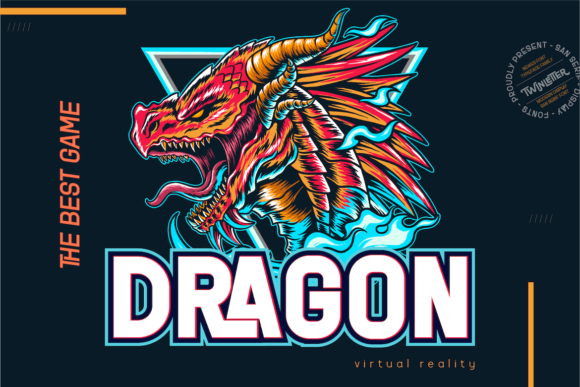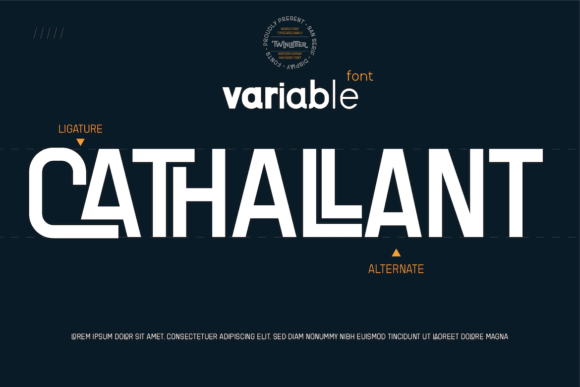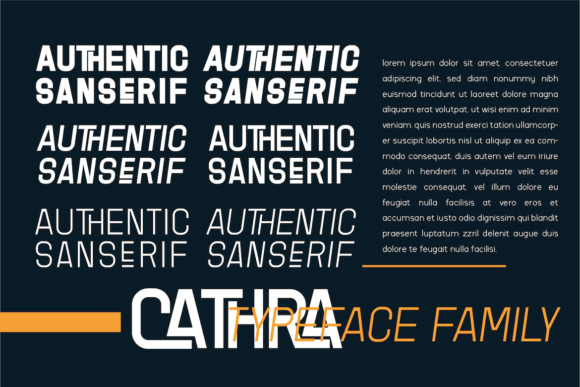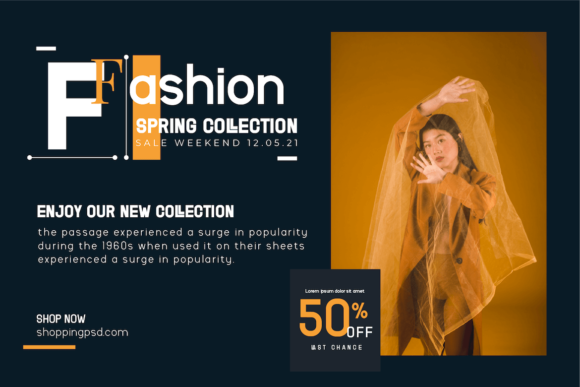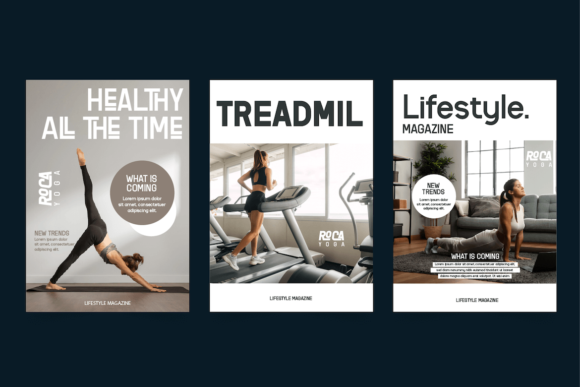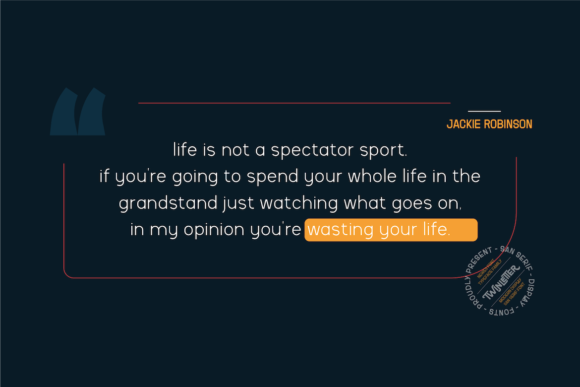
Cathra Font: Elevate Your Designs with a Cool, Bold, and Modern Sans Serif Font
In the world of design, fonts play a crucial role in conveying the message and aesthetic of a project. Whether you’re a seasoned designer or a crafty DIY enthusiast, finding the right font can make all the difference. If you’re on the hunt for a cool, bold, and modern sans serif font, look no further than Cathra. In this article, we’ll dive into the features and benefits of the Cathra font, and explore how it can elevate your designs to new heights.
What is Cathra Font?
Cathra is a sleek and contemporary sans serif font that’s designed to make a statement. Its clean lines, bold strokes, and modern aesthetic make it perfect for a wide range of design projects. Whether you’re working on a logo, brochure, website, or social media graphics, Cathra is the ideal choice for designers and crafters who want to add a touch of sophistication and style to their creations.
Key Features of Cathra Font
So, what sets Cathra apart from other fonts? Here are some of its key features:
- Cool and Modern Aesthetic: Cathra’s sleek design and bold strokes give it a fresh and modern look that’s sure to grab attention.
- Bold and Versatile: With its sturdy construction and clear typography, Cathra is perfect for headlines, titles, and body text.
- Sans Serif Design: The font’s sans serif design makes it easy to read and versatile enough to use in a variety of contexts.
- Expertly Designed: Cathra has been carefully crafted to ensure that it’s both aesthetically pleasing and highly legible.
Benefits of Using Cathra Font
So, why should you choose Cathra for your next design project? Here are just a few benefits of using this amazing font:
- Stand Out from the Crowd: With its unique and modern design, Cathra is sure to help your project stand out from the competition.
- Easy to Read: The font’s clear typography and bold strokes make it easy to read, even at small sizes.
- Versatile: Cathra can be used in a wide range of design projects, from logos and brochures to websites and social media graphics.
- Time-Saving: With Cathra, you can create professional-looking designs in no time – perfect for busy designers and crafters.
How to Use Cathra Font in Your Designs
Ready to give Cathra a try? Here are some tips for incorporating this amazing font into your designs:
- Pair it with Other Fonts: Cathra looks great when paired with other fonts, so don’t be afraid to experiment with different combinations.
- Use it for Headlines and Titles: The font’s bold strokes and modern aesthetic make it perfect for headlines and titles.
- Experiment with Colors: Cathra looks great in a variety of colors, so don’t be afraid to try out different options.
In conclusion, Cathra is a cool, bold, and modern sans serif font that’s perfect for designers and crafters who want to elevate their designs. With its sleek design, bold strokes, and versatile aesthetic, Cathra is sure to become a go-to font in your design arsenal. So why wait? Give Cathra a try today and see the difference it can make in your designs!
Whether you’re working on a logo, brochure, website, or social media graphics, Cathra is the ideal choice for anyone who wants to add a touch of sophistication and style to their creations. With its expert design, bold aesthetic, and versatility, Cathra is sure to help you create stunning designs that leave a lasting impression.